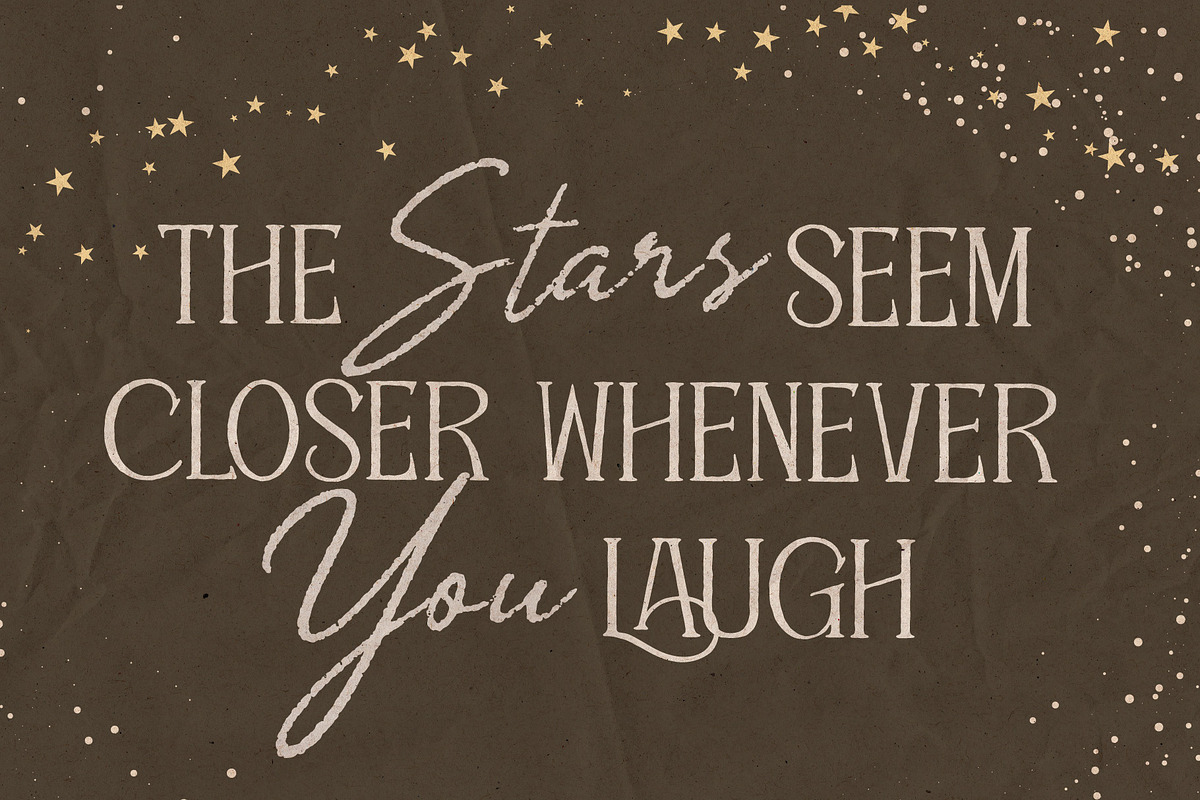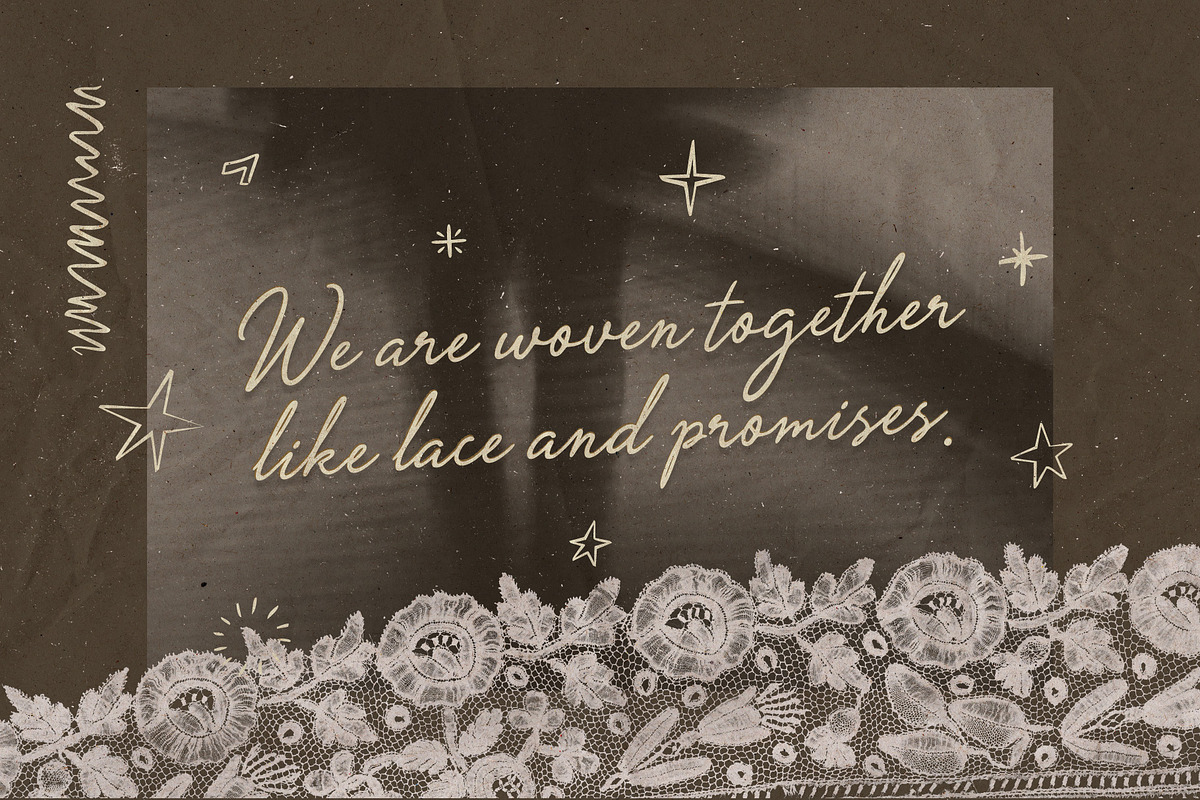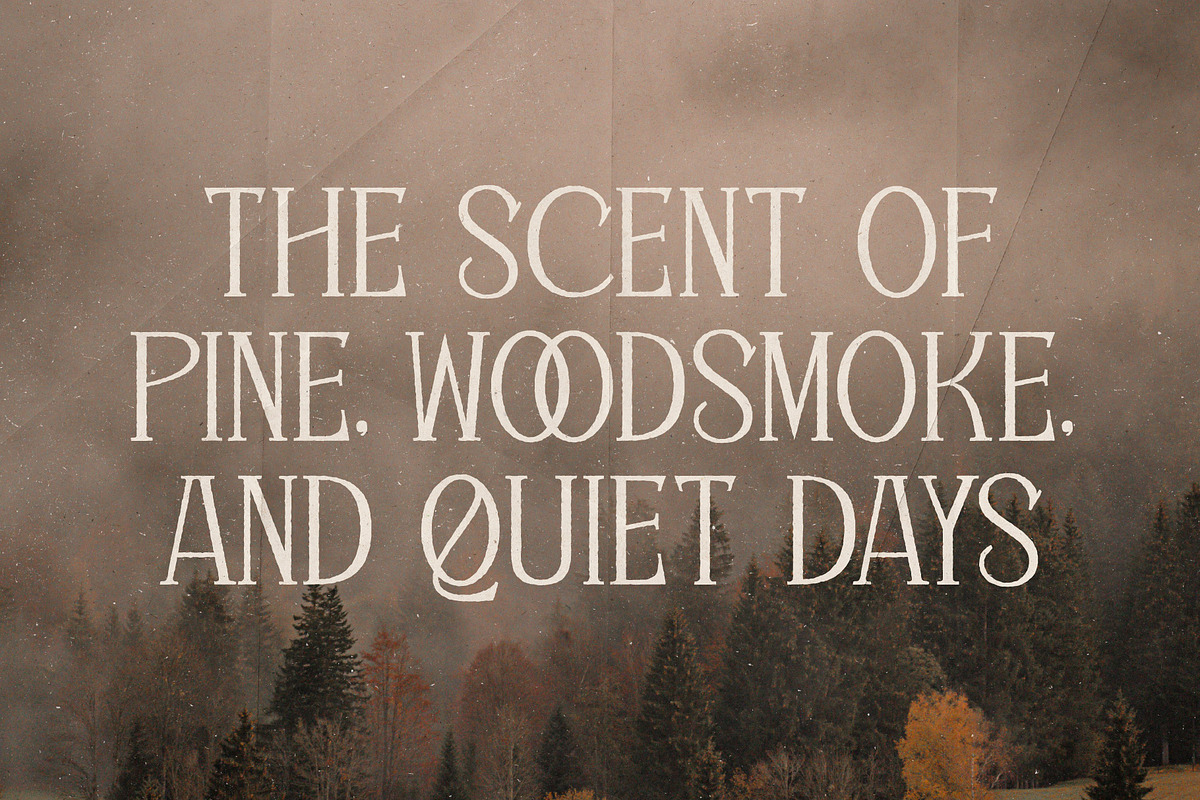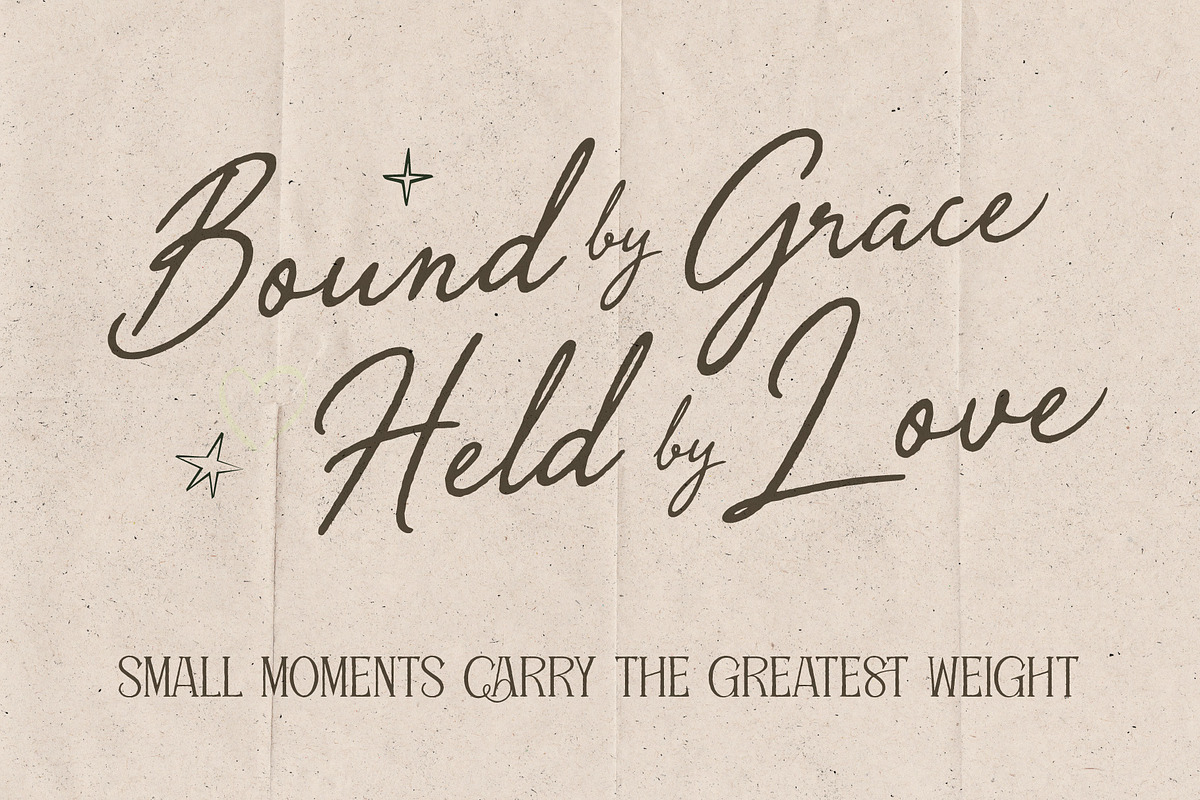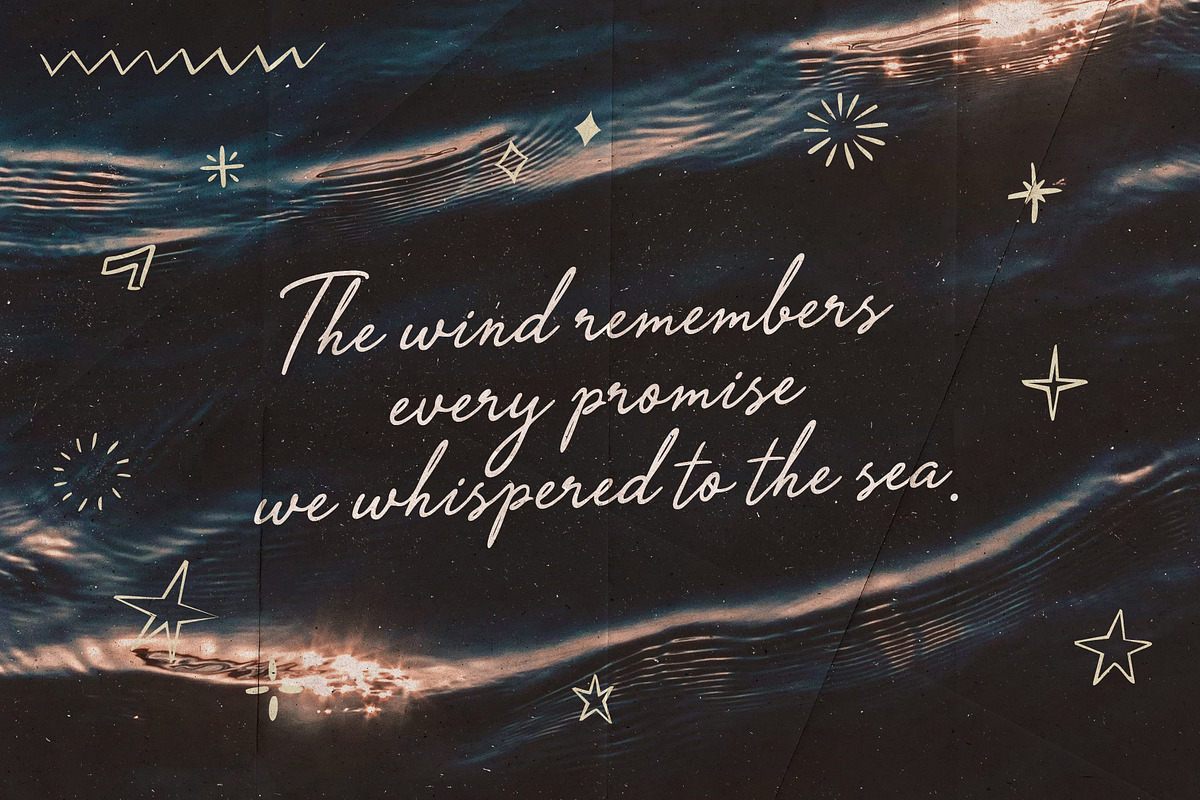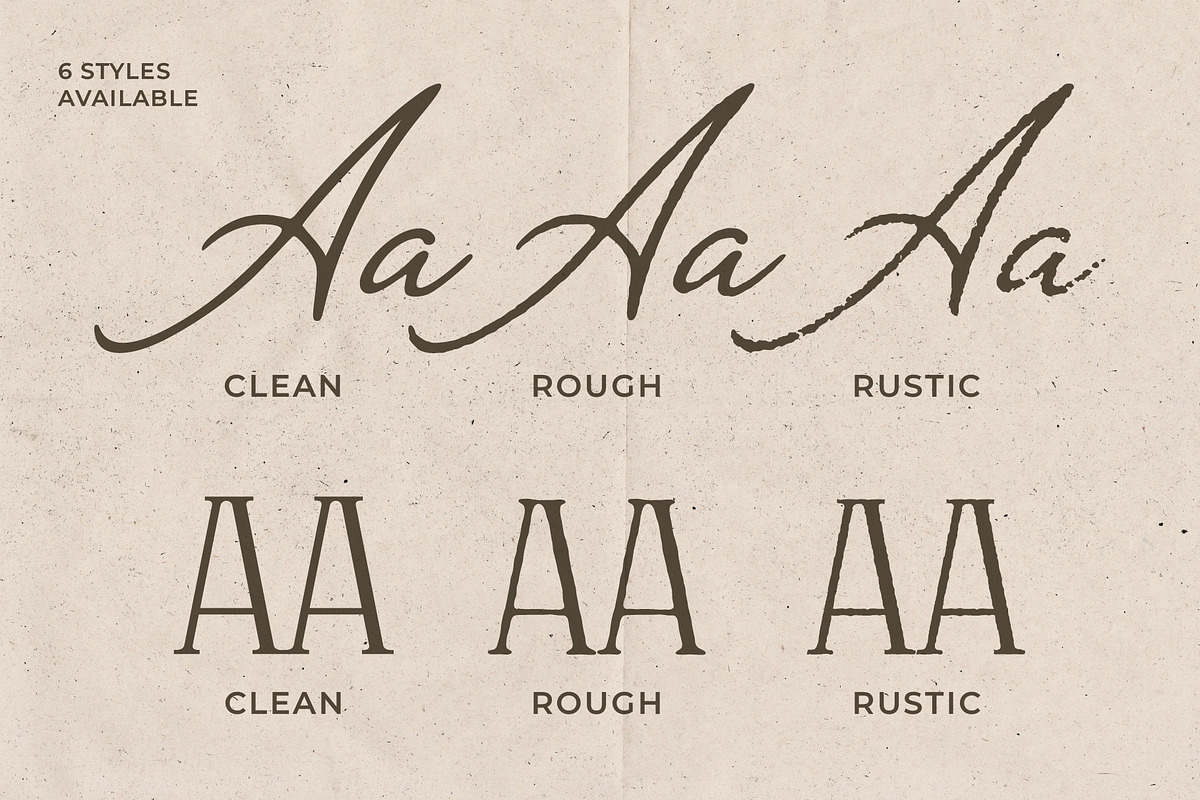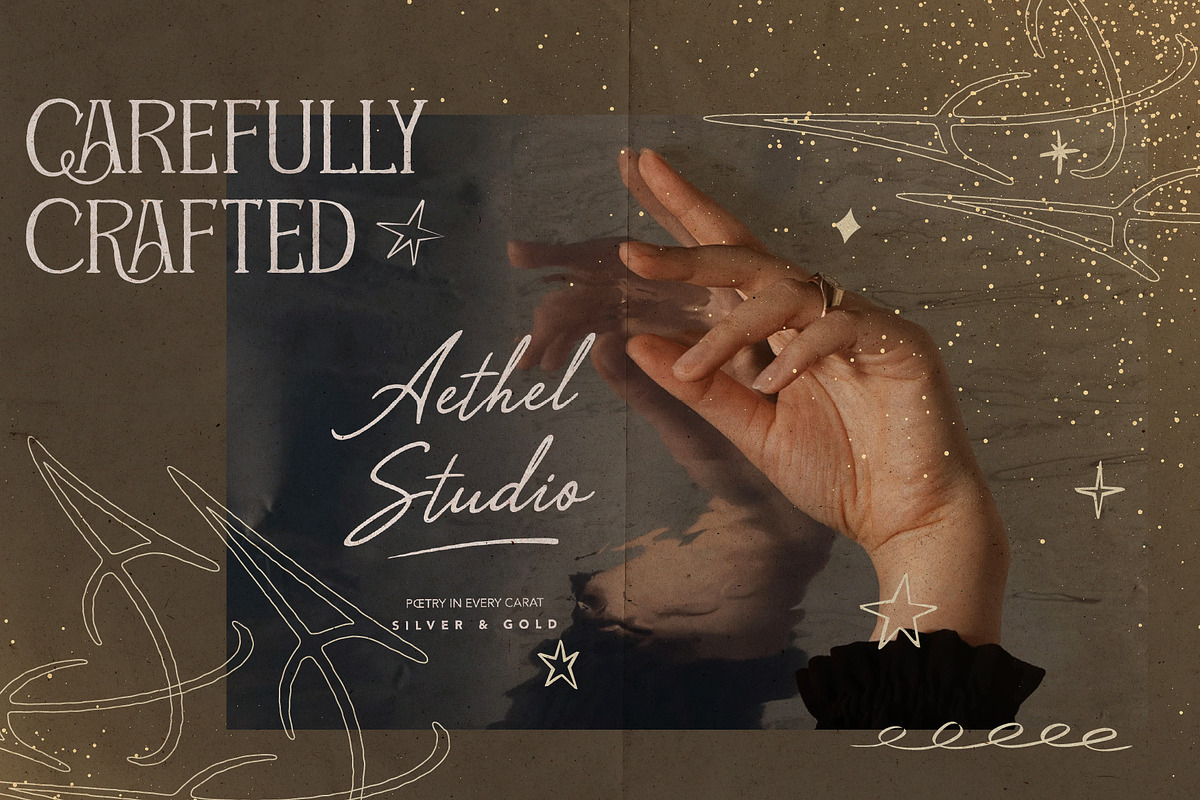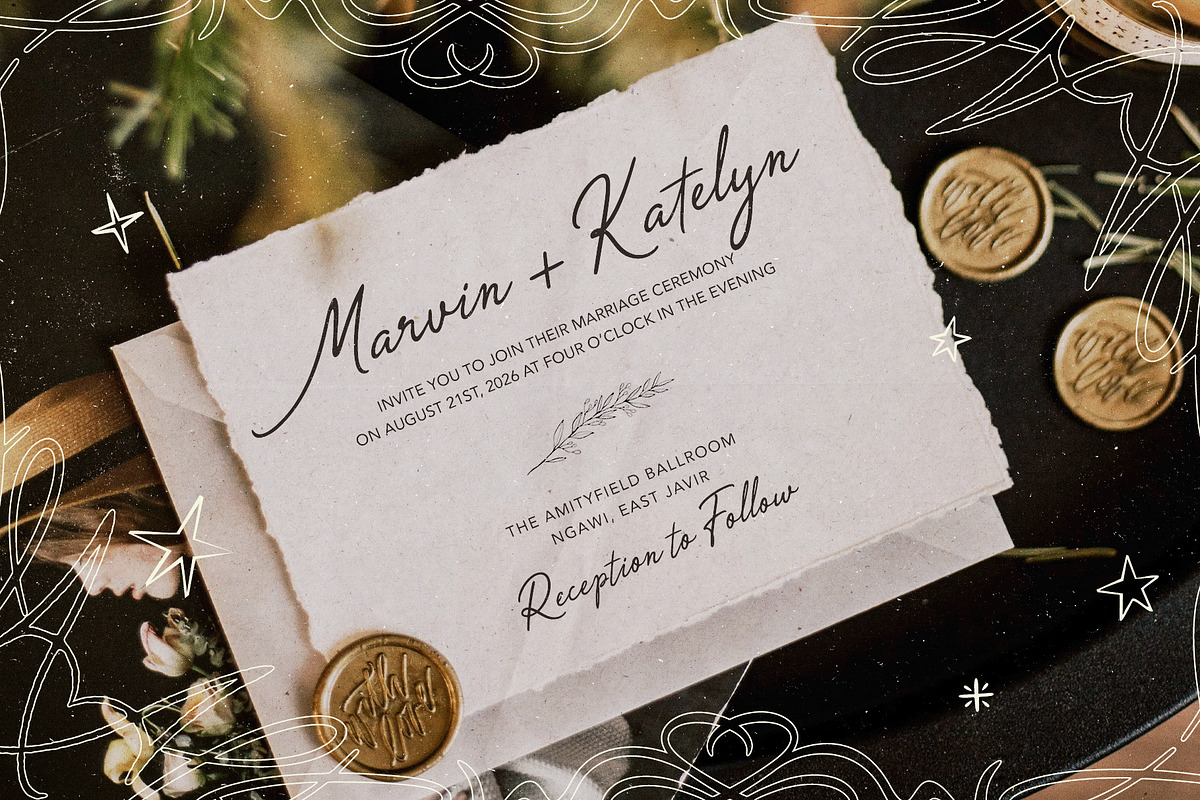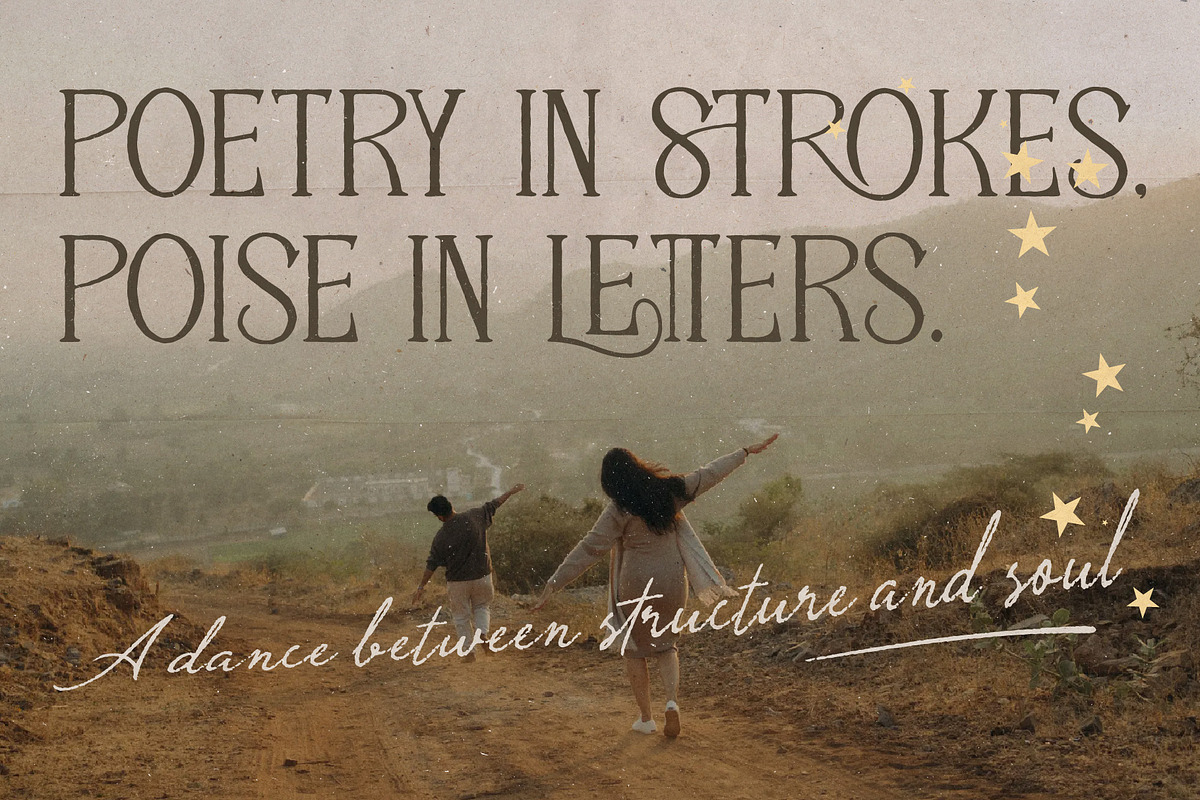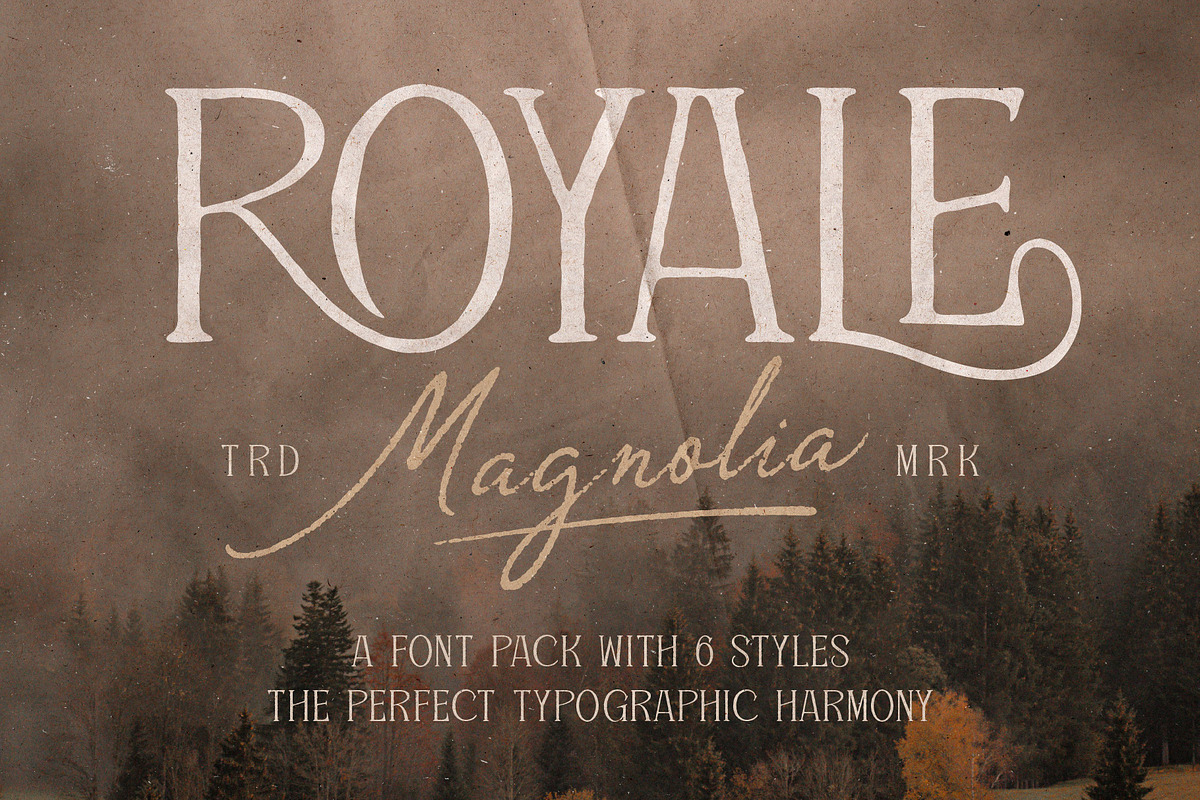
Royale Magnolia Romantic Vintage Duo
Royale Magnolia is a timeless vintage font duo that blends an elegant ornamental serif with a graceful handwritten signature script. Inspired by classic editorial typography, cottagecore aesthetics, vintage love letters, and heritage branding, this font collection creates a perfect balance between refined structure and natural handwritten charm. Every character is thoughtfully designed to bring sophistication, romance, and nostalgia into your creative work.
Serif Typeface Collection
Handwritten Signature Script
Uppercase & Lowercase Characters